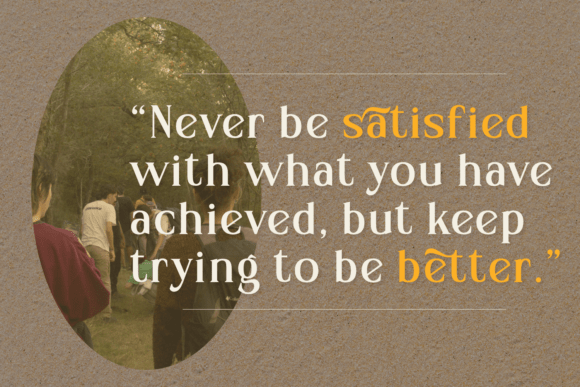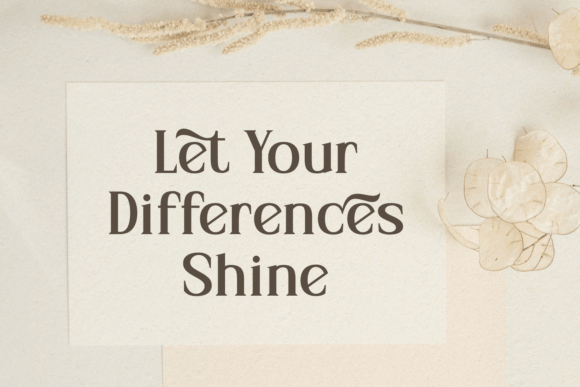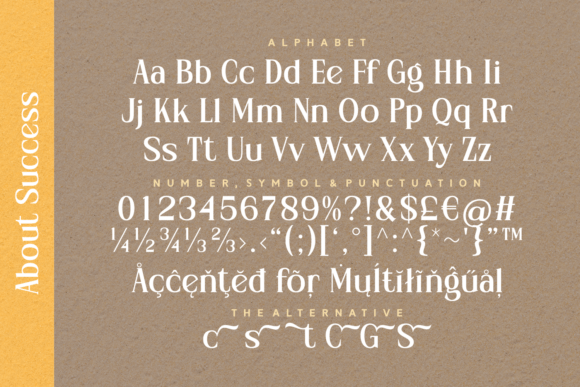
Unveiling About Success Font: Elevate Your Designs with Elegance and Sophistication
In the realm of typography, fonts play a pivotal role in conveying messages, evoking emotions, and creating lasting impressions. Among the myriad of fonts available to designers and crafters, About Success Font stands out as a beacon of modernity, elegance, and bold sophistication. This comprehensive article delves into the world of About Success Font, exploring its unique characteristics, versatility, and the myriad of applications where it shines.
The Essence of About Success Font
About Success is a modern serif font that masterfully blends traditional elegance with a contemporary edge. Its design is characterized by sharp serifs and graceful curves, a combination that yields a timeless aesthetic. This font is not just about conveying information; it’s about making a statement. The stylish alternates integrated into About Success add a layer of uniqueness, allowing designers to inject personality and flair into their work.
- Sharp Serifs: The serifs in About Success Font are meticulously crafted to provide a crisp, clean look that enhances readability while imparting a sense of sophistication.
- Graceful Curves: The curves of this font are fluid and elegant, contributing to its modern appeal and making it perfect for designs that require a touch of grace.
- Stylish Alternates: The inclusion of stylish alternates offers designers the flexibility to experiment with different looks, ensuring that their designs stand out.
Applications of About Success Font
The versatility of About Success Font makes it an invaluable asset for a wide range of design projects. Here are some areas where this font truly excels:
- Editorial Design: For magazines, newspapers, and digital publications, About Success offers a refined and professional look that enhances the reading experience.
- Branding: Its unique blend of elegance and boldness makes it an excellent choice for brands aiming to convey luxury, sophistication, and confidence.
- Luxury Packaging: The font’s luxurious feel makes it perfect for high-end product packaging, where standing out on crowded shelves is crucial.
- Statement Headlines: Whether for advertising, events, or digital content, About Success Font can turn heads with its impactful and stylish headlines.
Why Choose About Success Font?
In a world where design trends are constantly evolving, About Success Font offers a timeless solution. Its classic serifs and modern twists ensure that designs never go out of style. Here are a few reasons why designers and crafters are gravitating towards this font:
- Confidence and Creativity: About Success exudes a sense of confidence and creativity, essential qualities for designers looking to make an impact.
- Versatility: Its adaptability across various design projects makes it a valuable addition to any designer’s toolkit.
- Elegance and Sophistication: For projects that demand a high level of elegance and sophistication, About Success Font is unparalleled.
About Success Font is more than just a typeface; it’s a design statement. Its elegant yet bold presence can elevate any project, making it a go-to choice for designers and crafters worldwide. Whether you’re working on a luxury brand campaign, a high-end packaging project, or simply looking to add some sophistication to your editorial design, About Success Font is poised to make a lasting impression. With its timeless appeal and versatile nature, it’s an asset that will continue to inspire creativity and confidence in the world of design.
Embrace the elegance and sophistication of About Success Font in your next project and experience the difference it can make.